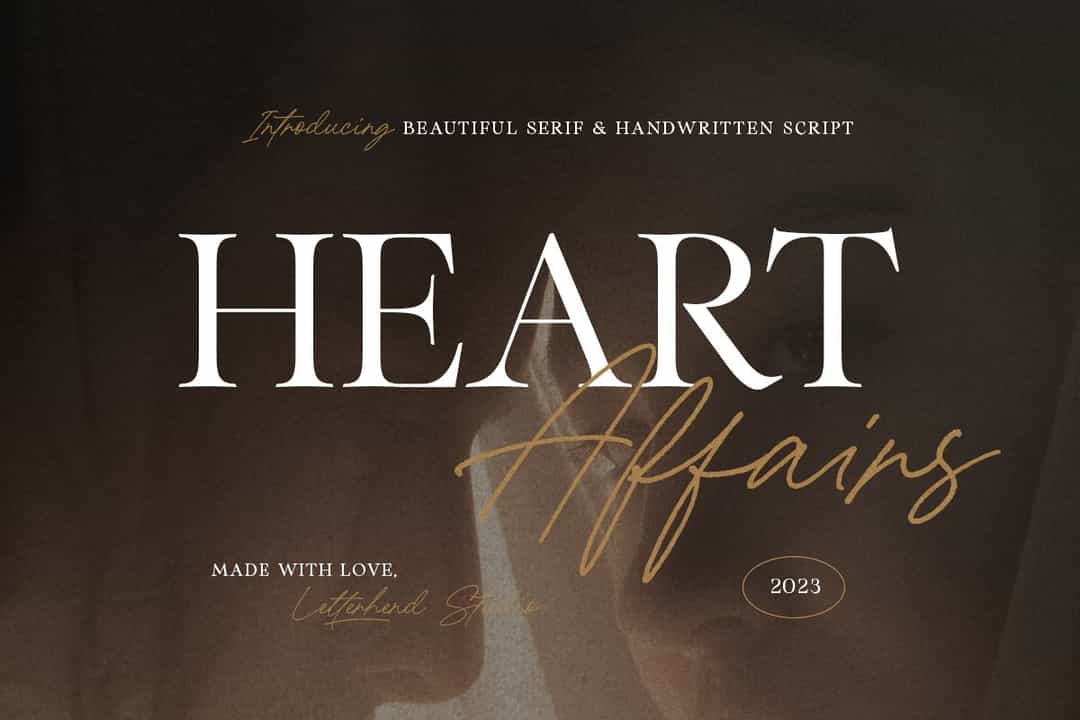
Gents and ladies, take a moment to meet Heart Affairs: an elegant font duo featuring serif fonts blending seamlessly with handwritten script. Our Heart Affairs font duo has been carefully created to combine classic serif appeal with contemporary script styles for maximum impact! Heart Affairs provides the perfect backdrop to elevate any work with its timeless style and versatile flexibility.